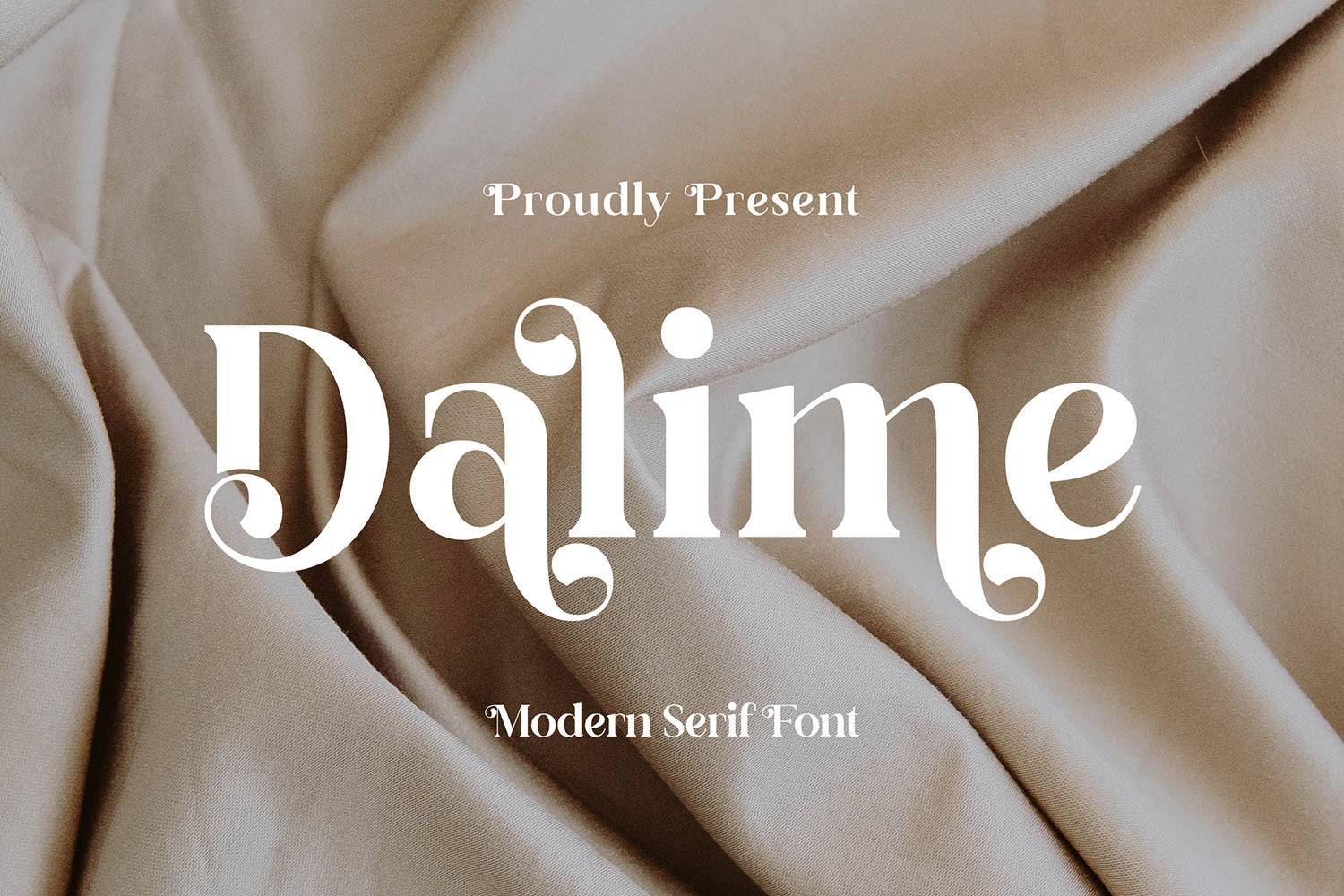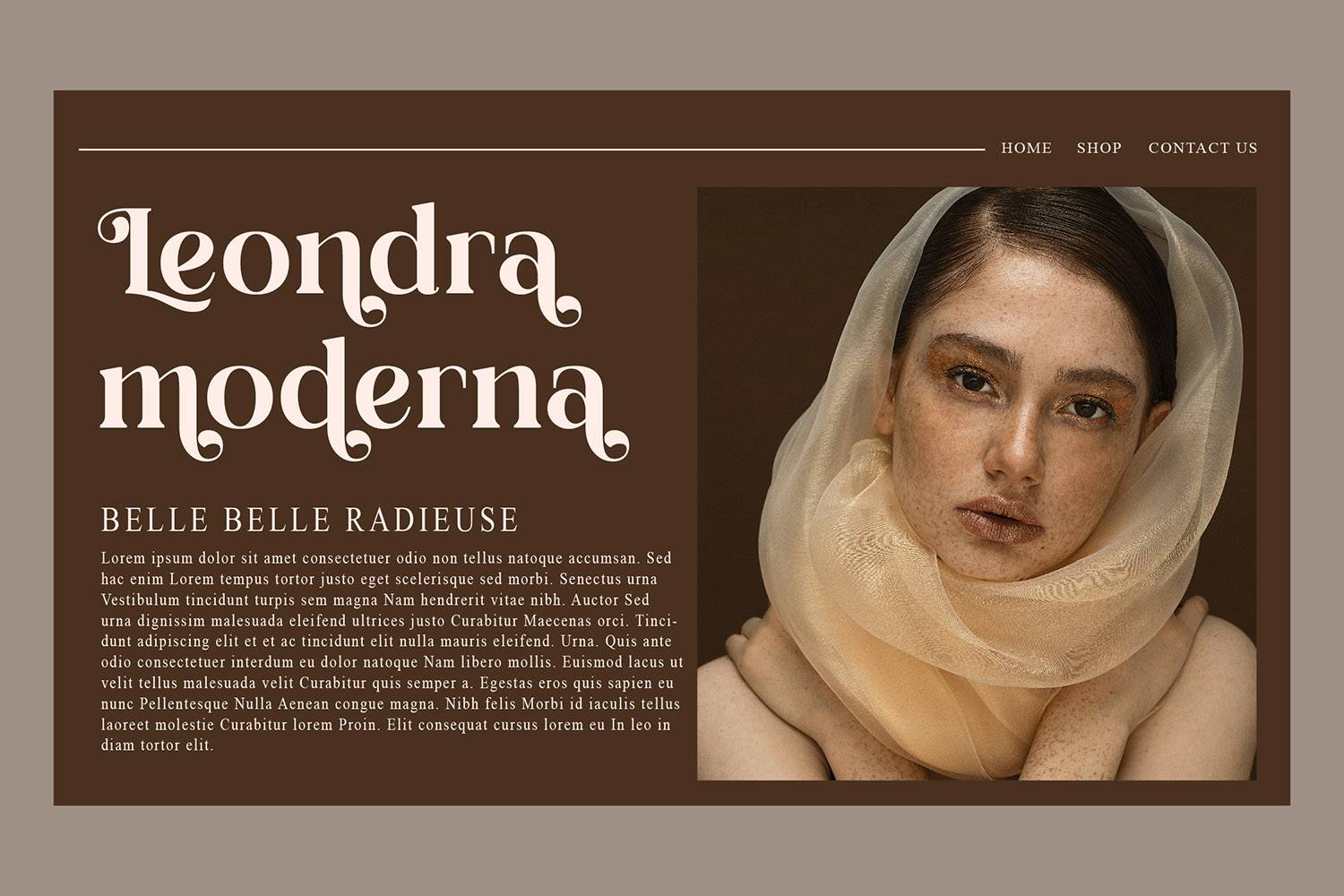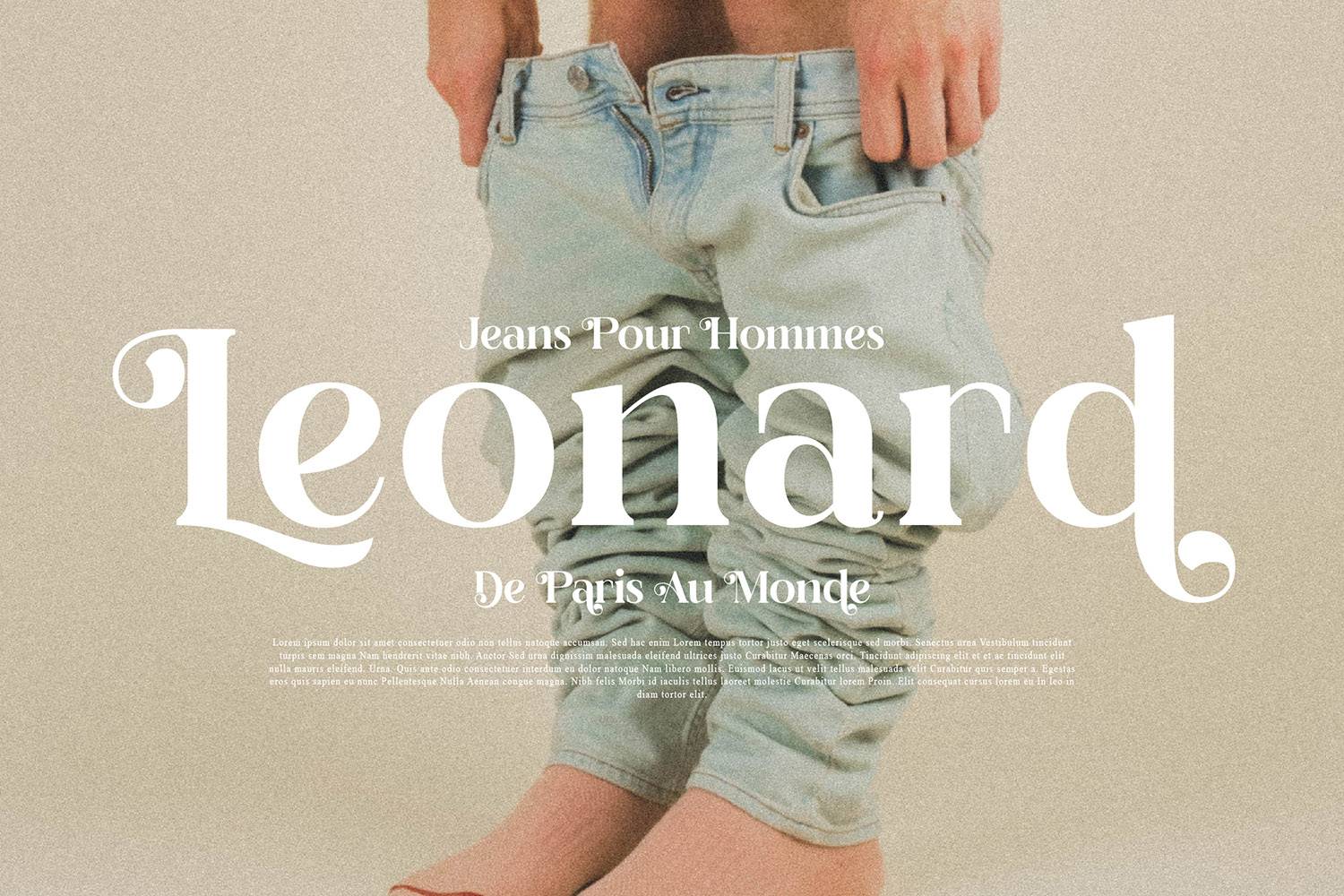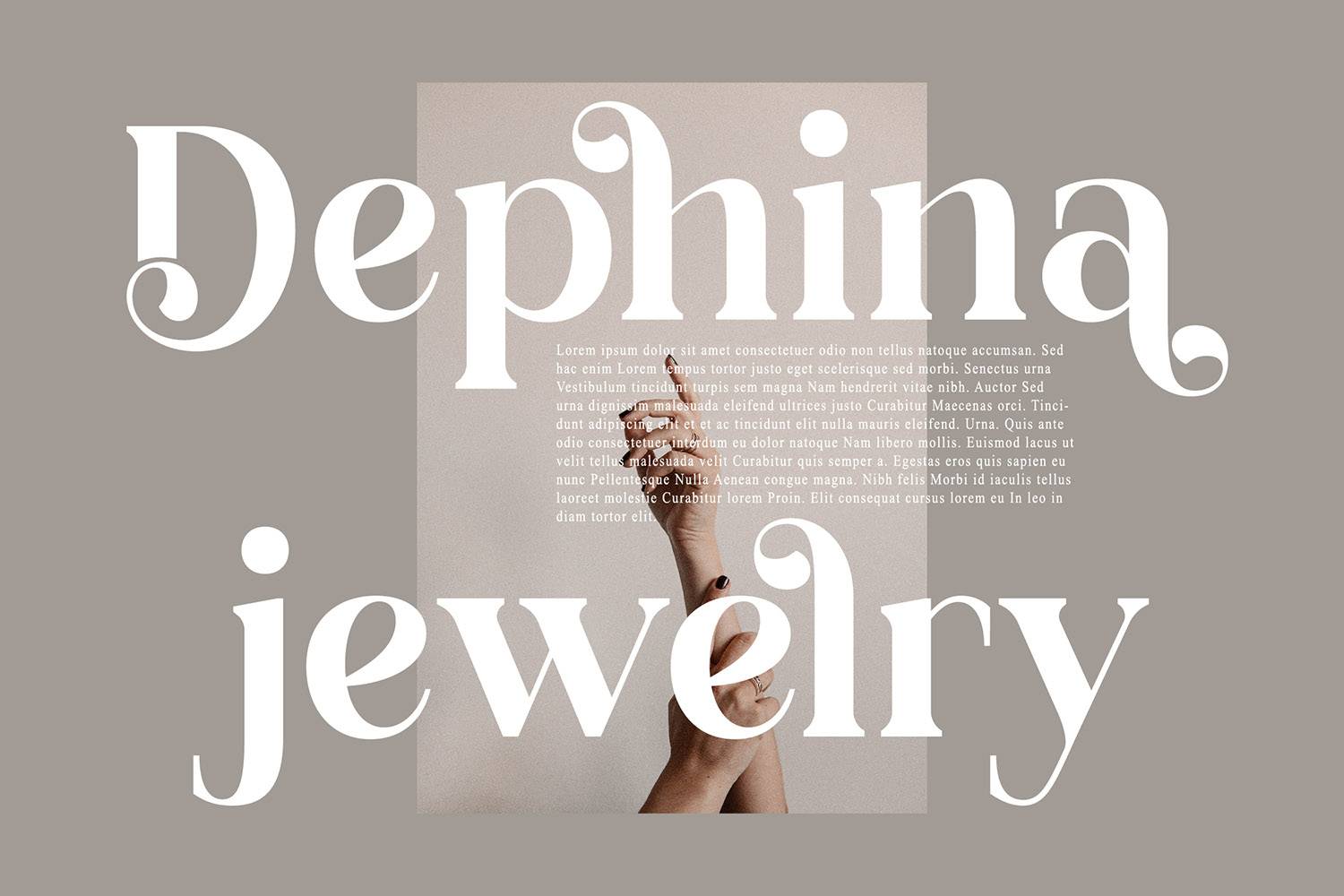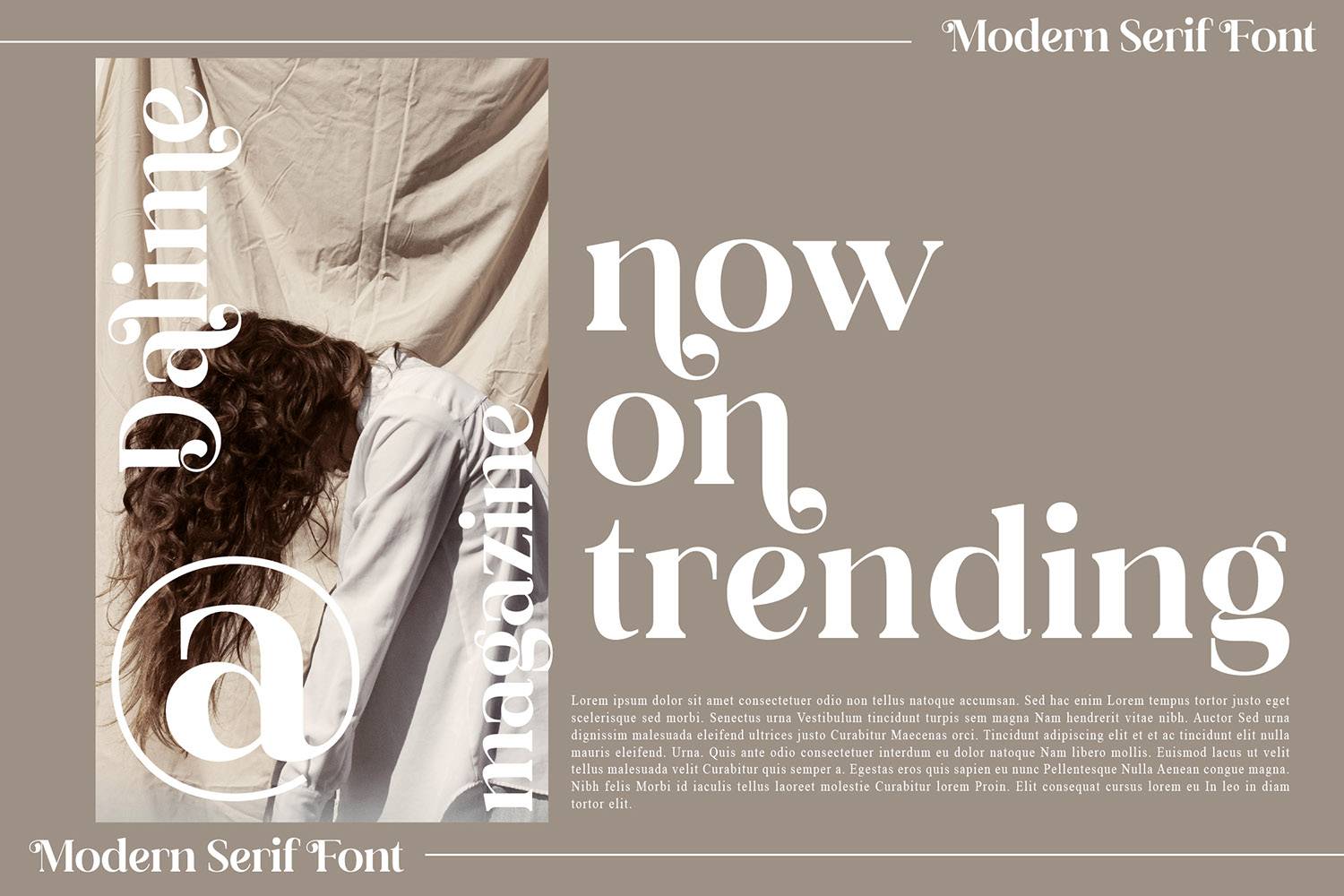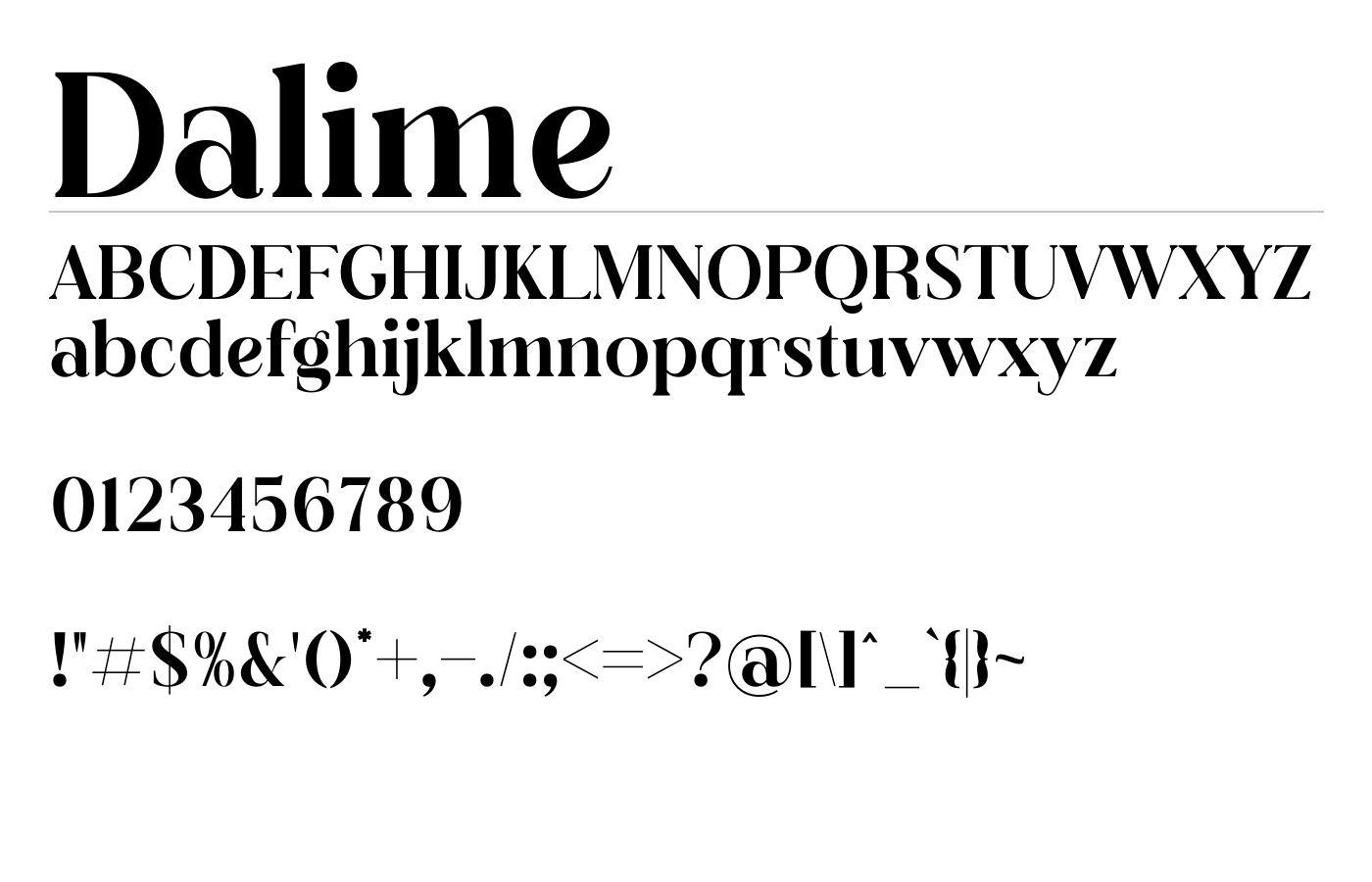
Dalime is a sophisticated serif font characterized by its high contrast between thick and thin strokes, sharp serifs, and elegant, slightly condensed letterforms. Its refined style and classic proportions make it ideal for luxury branding, editorial headlines, and fashion-oriented design, conveying a sense of timeless elegance and professionalism.
Dalime Font
About Dalime Font